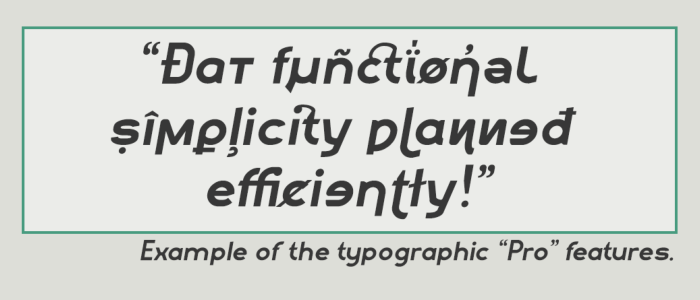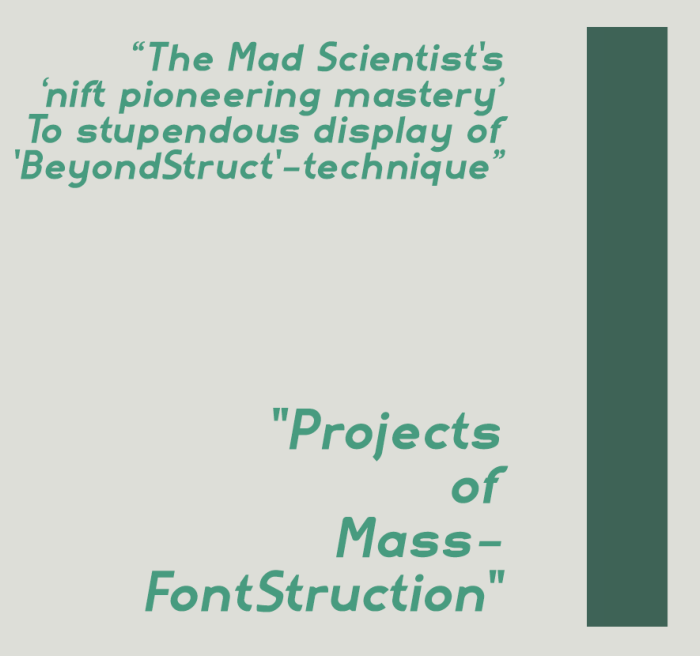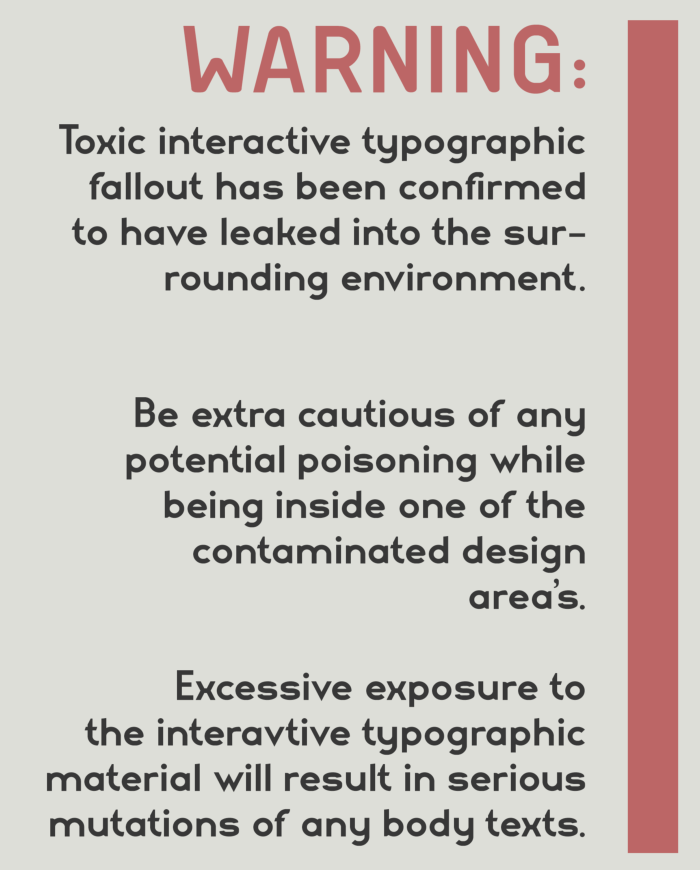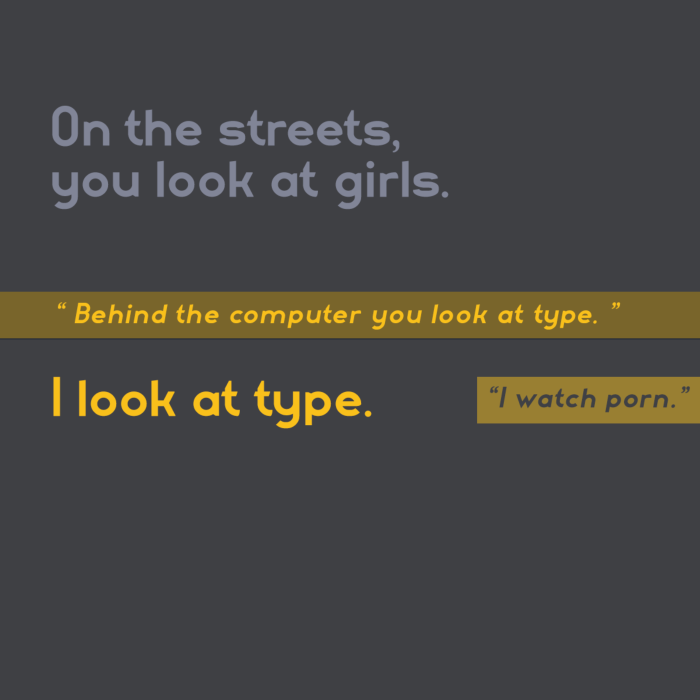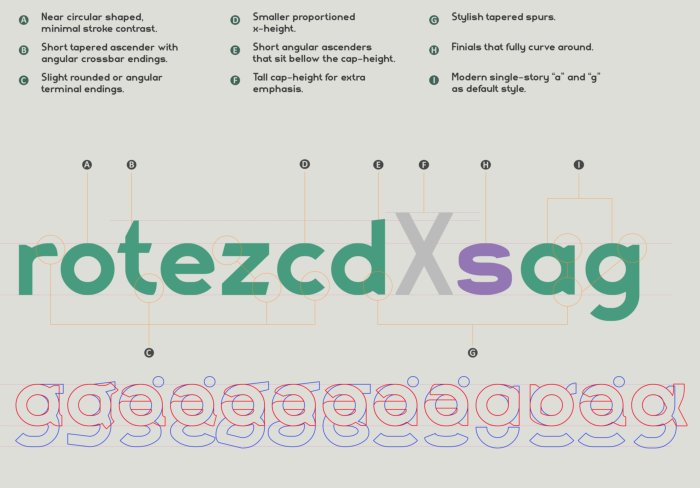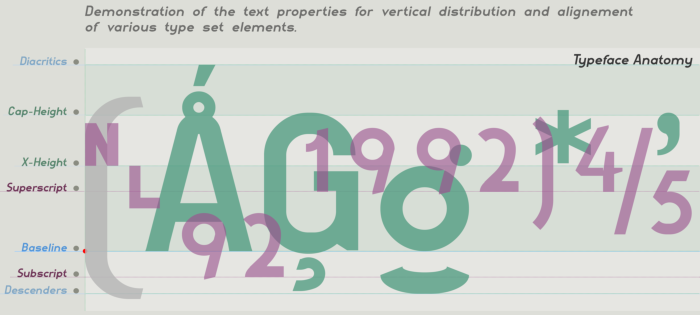
STF GROOTESK Pro ― Contemporary geometric grotesque
A clean and geometric grotesque sans-serif typeface that is equipped with tons of extended professional editorial typographic features,
such as:
Multilingual support in 3 script writing systems for 113 languages, glyph alternative forms, stylistic ligatures, accents and punctuation marks, symbols, technical, ordinal, pictographs, additional dingbats.
15164 stored kerning-pair and many other professional features!
■ Metrics (in square grid units)
5.0-Em / 0.5-Stroke
2.0 : 2.0-Brick Size Filter
Em-Square: 5.0
Cap-Height: 3.25
X-Height: 2.0
Ascent: 0.875
Descent: 1.0
Overshoots: 2 × 0.0625 Top/Bottom - (uppercase only)
The main inspiration came from those early to mid-20th century geometric grotesques, and visual environment of that era.
Although the characters were mostly geometrically constructed, and remain as close as possible to basic geometry, "STF GROOTESK Pro" includes a blend of stylish hints of hand-crafted lettering influences and intentional irregularities in order to tribute those classical geometric designs.
For extra additional emphasis the design tries to take advantage of a rather unusual vertical Uc>Lc proportion, with ascender parts of the 'Lc' characters sitting well bellow the cap-height, making the 'Uc' appear strikingly taller in comparison. Essentially providing the uppercase with a more "Condensed" feel. Some of the other characteristics of the design are it's sturdy and stylish yet clean presence, with little to no contrast, and it comes in bold style only. But to compensate for the lack of extra weight versions there was some serious time invested into additional testing and optimizing the entire typeface. So it is super well mastered and therefor extremely versatile.
That being said..
Looks can be deceptive at quick first glance, and this indeed might appear as being a very basic looking design. Even though this in fact is far from being just that other basic looking display sans, nor your next boring geometric grotesque!
From a FontStructor-perspective point-of-view I recommend to take a more ‘close-up’ view of the design's finer details. This creates a better understanding and greater appreciation for the extreme level of complexity that is present in both form and function.
Zooming-in on some of the letters would reveal the font's subtle, yet nuanced diversity of that 'previously' hidden underlying personal characteristics that usually remain invisible in text format at smaller point size. Now suddenly just its overall care for finer detail and overall quality within every bit of the design, the tons of custom shaping, stroke transitions and additional smoothing will gradually emerge as zoom levels get ever deeper. At its deepest level it will even shed some light on the surgical stuff that mostly works invisibly and without the awareness of its reader.
A display typeface at it's core, still it performs equally great in very small body-print text or web design application, as it does too in larger format for headings, ads or branding.
Thus providing, this very function efficient and reliable work-horse,
a truly genuine "one style fits all" typeface powerhouse.
And there its no question whether this could hand out "a 'one-punch' K.O." of a Headliner, thats obvious. But this unyielding bumpy behemoth just as well takes u for the long run, effortlessly telling you fascinating stories.
Especially well cared for optimized rendering on a computer display device, and deliver simple yet versatile seemless digital typeset material.
The new "Pro" version update for GROOTESK utilizes several TrueType smart-font features and control characters to map two or more glyphs for combining glyph composition.